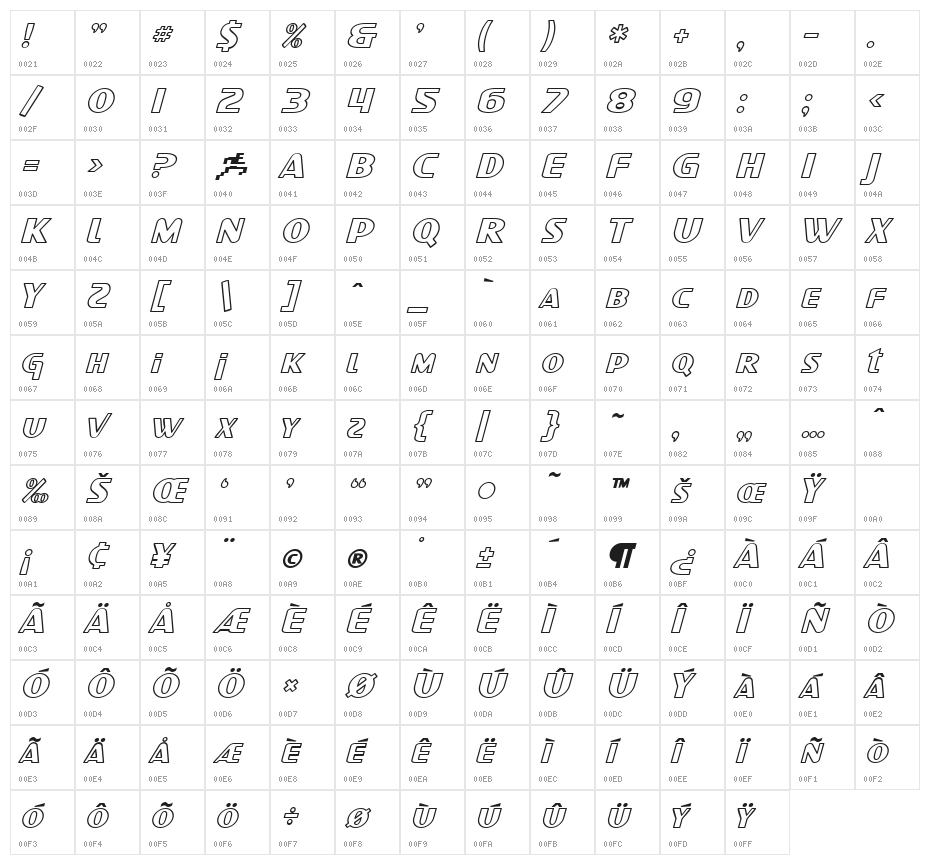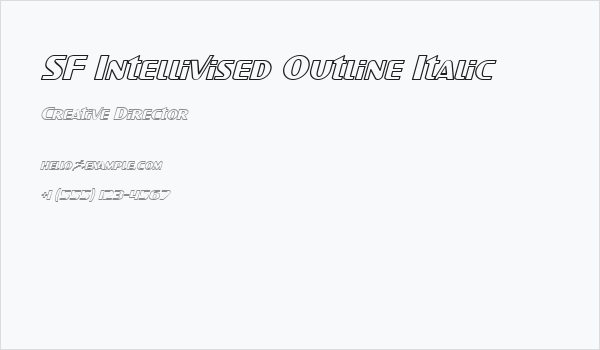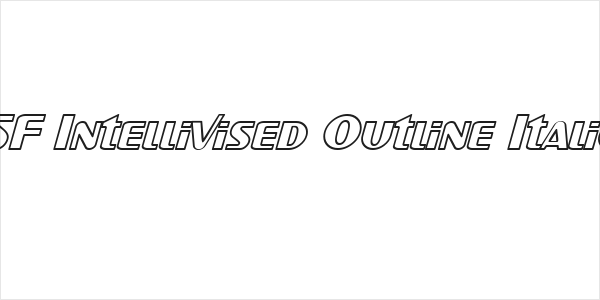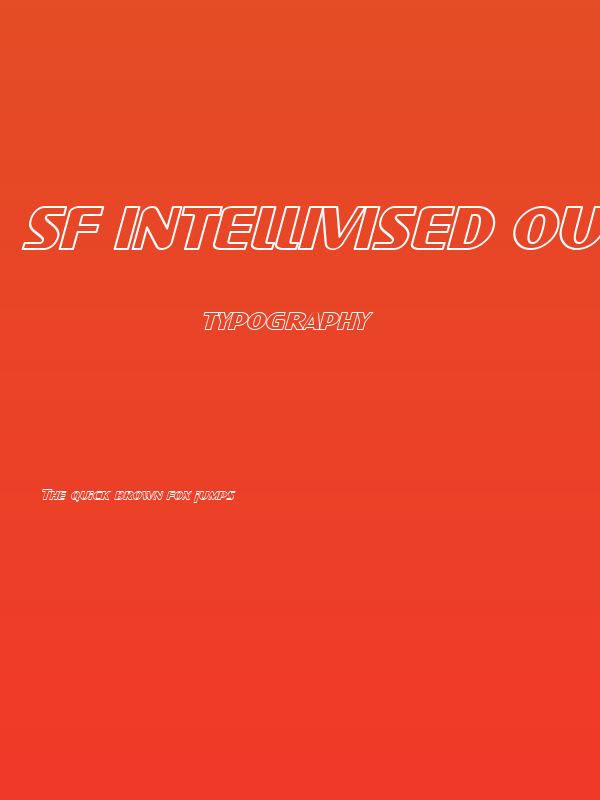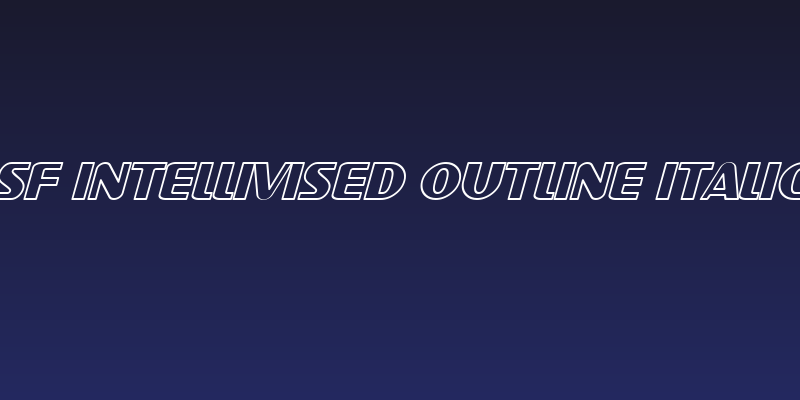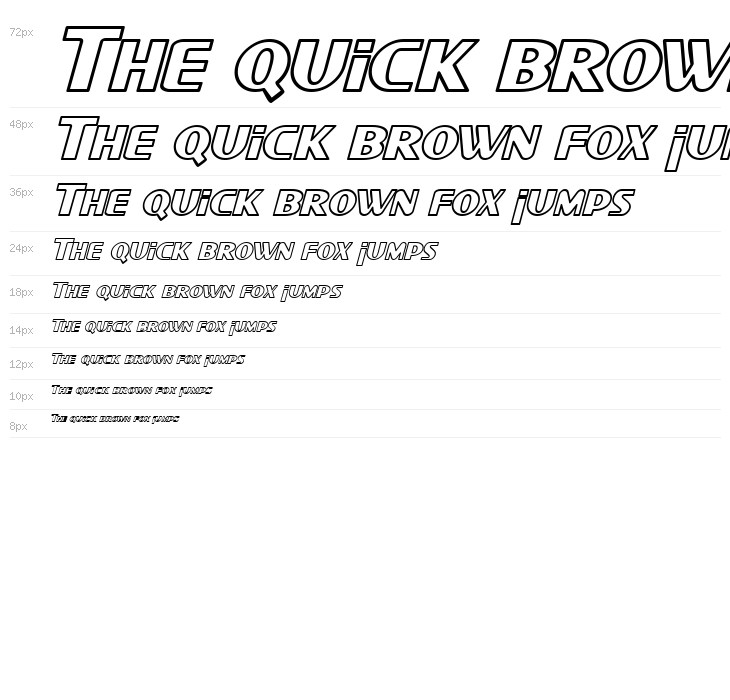
SF Intellivised Outline Italic Font
SF Intellivised Outline Italic Description
This font features a modern, italicized outline style that gives it a dynamic and futuristic appearance. The letters are bold and slanted, creating a sense of movement and speed. The outline design adds a unique dimension, making the characters stand out without being filled. This style is consistent across uppercase, lowercase, numbers, and special characters, providing a cohesive look. The font's geometric shapes and clean lines make it suitable for digital and print media, where a contemporary and eye-catching design is desired.
| Proposed Projects | Ideal for branding, sports team logos, tech company advertisements, and futuristic-themed designs. |